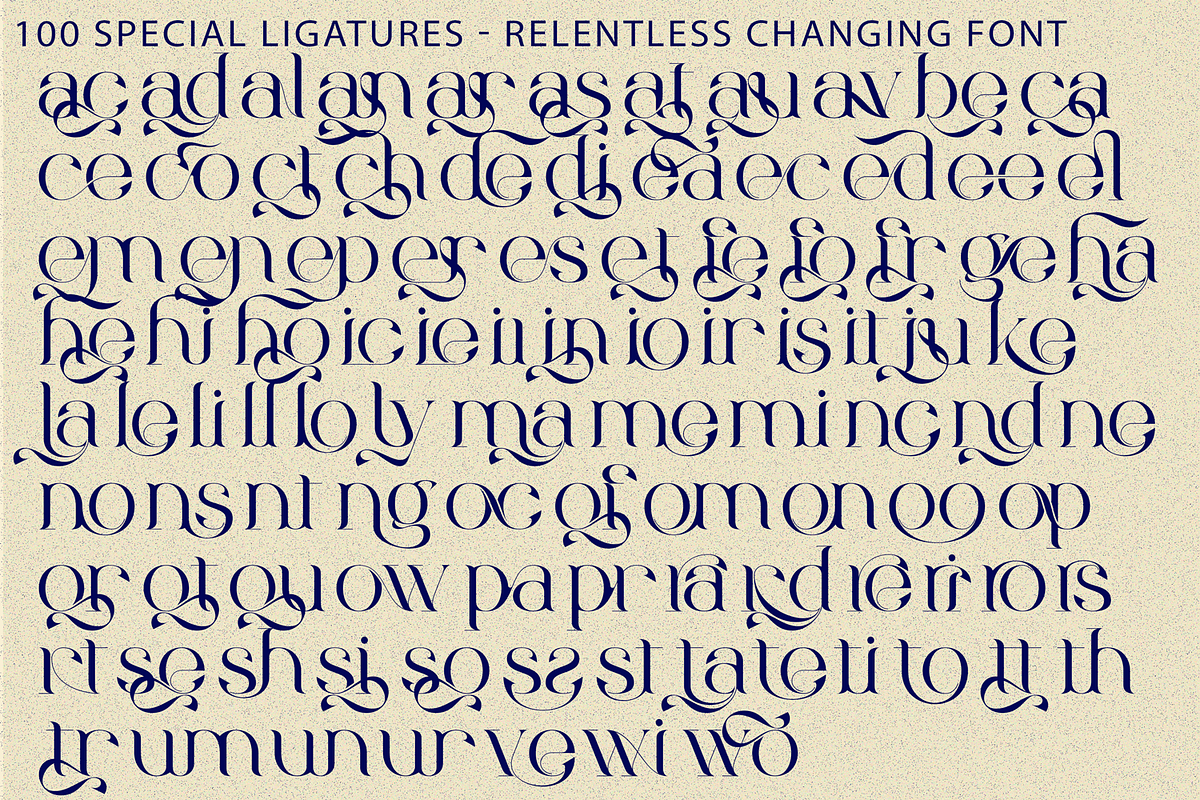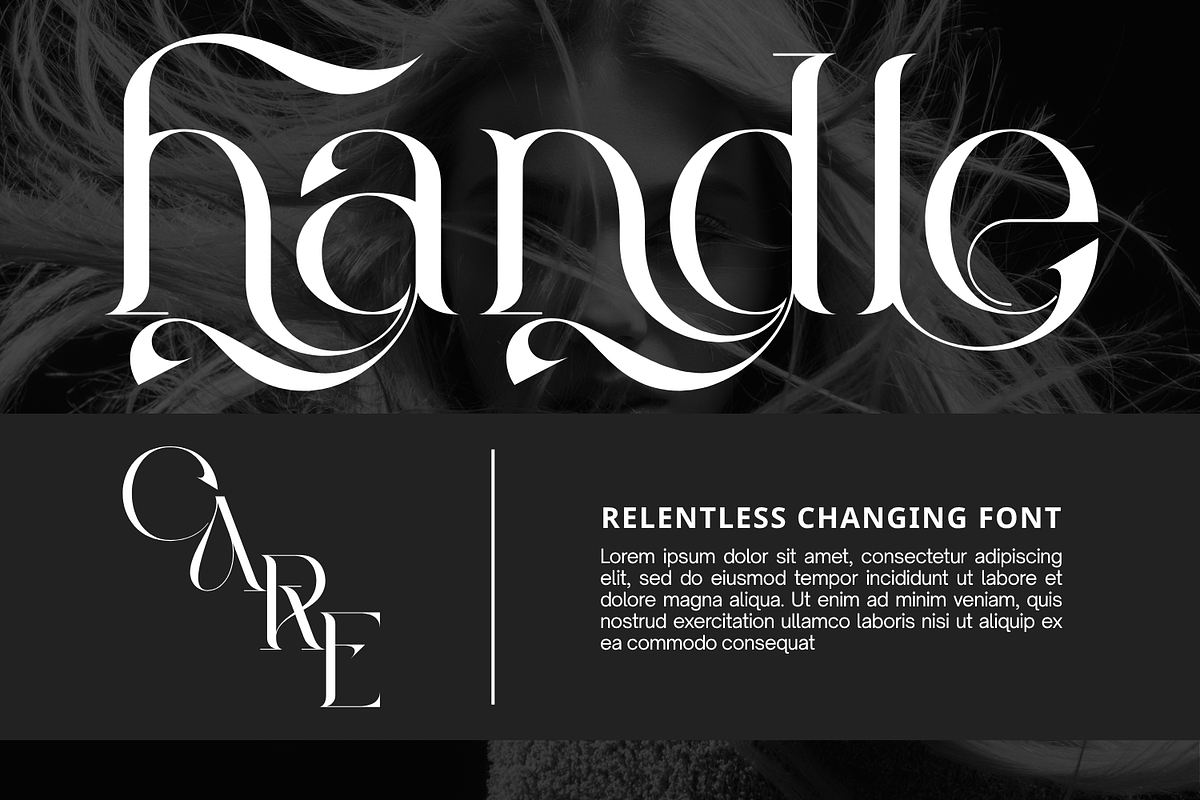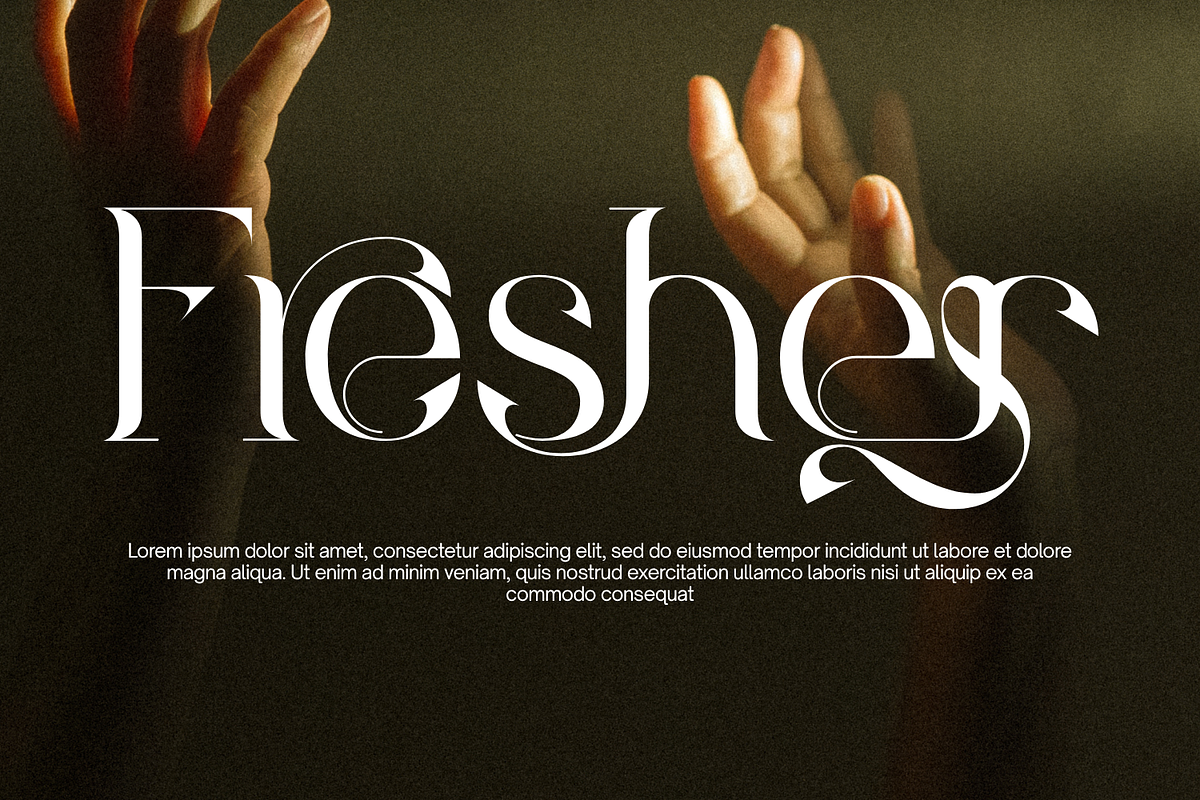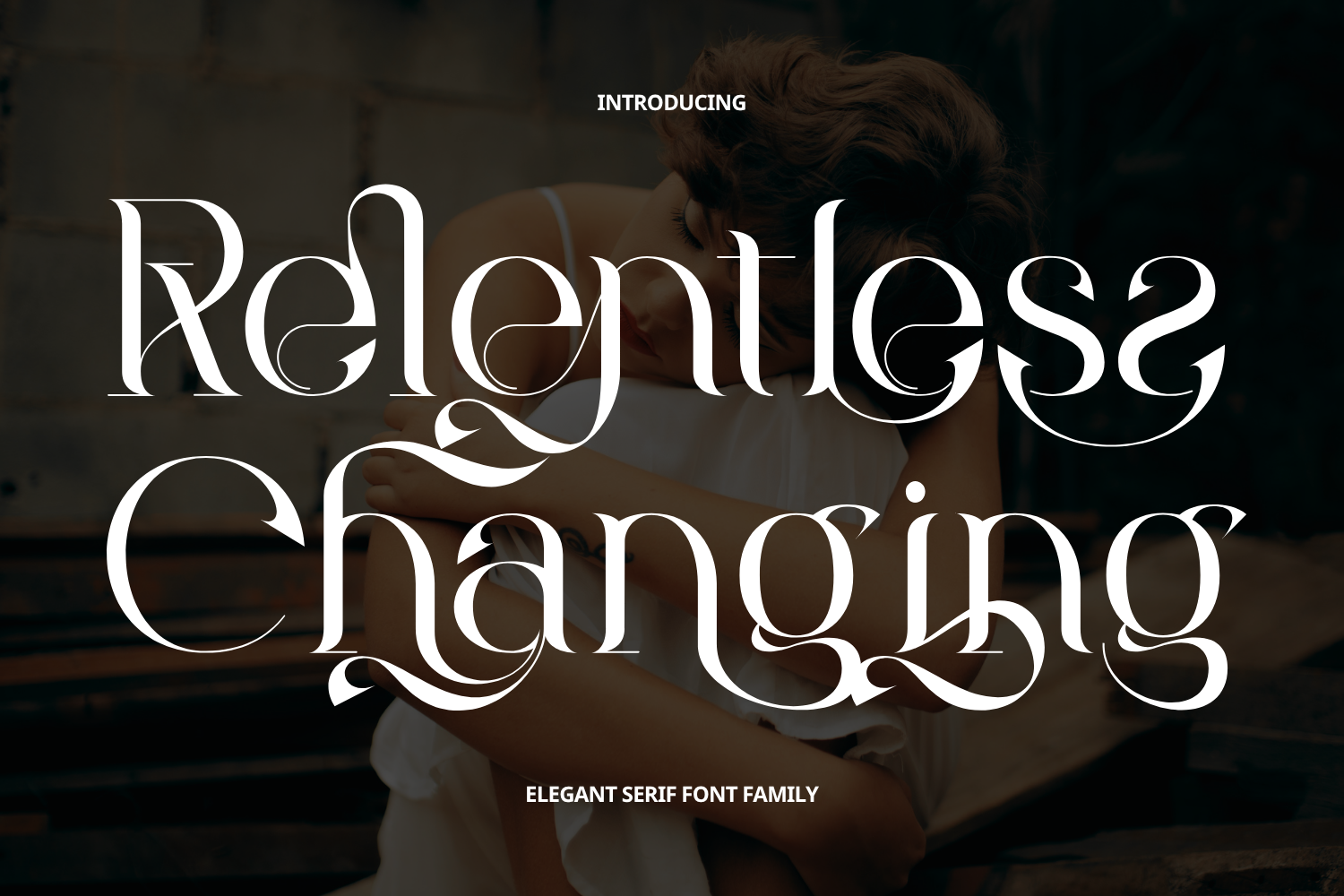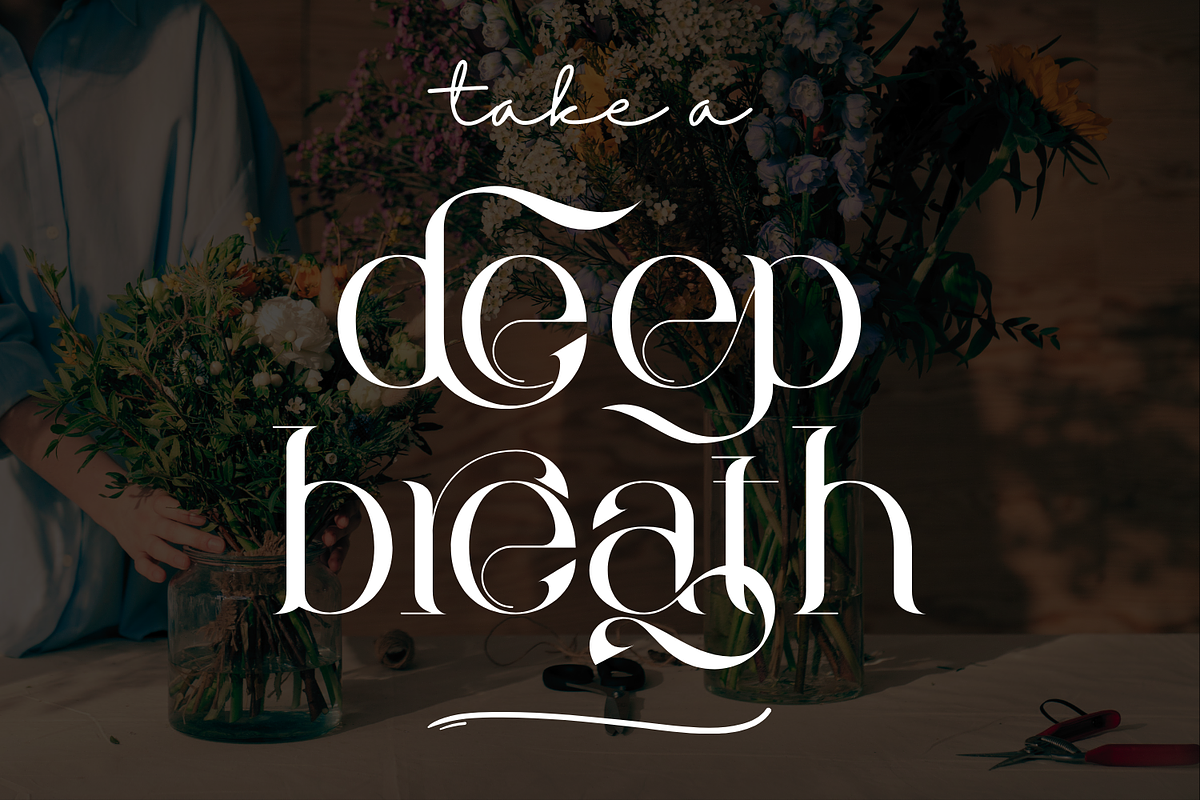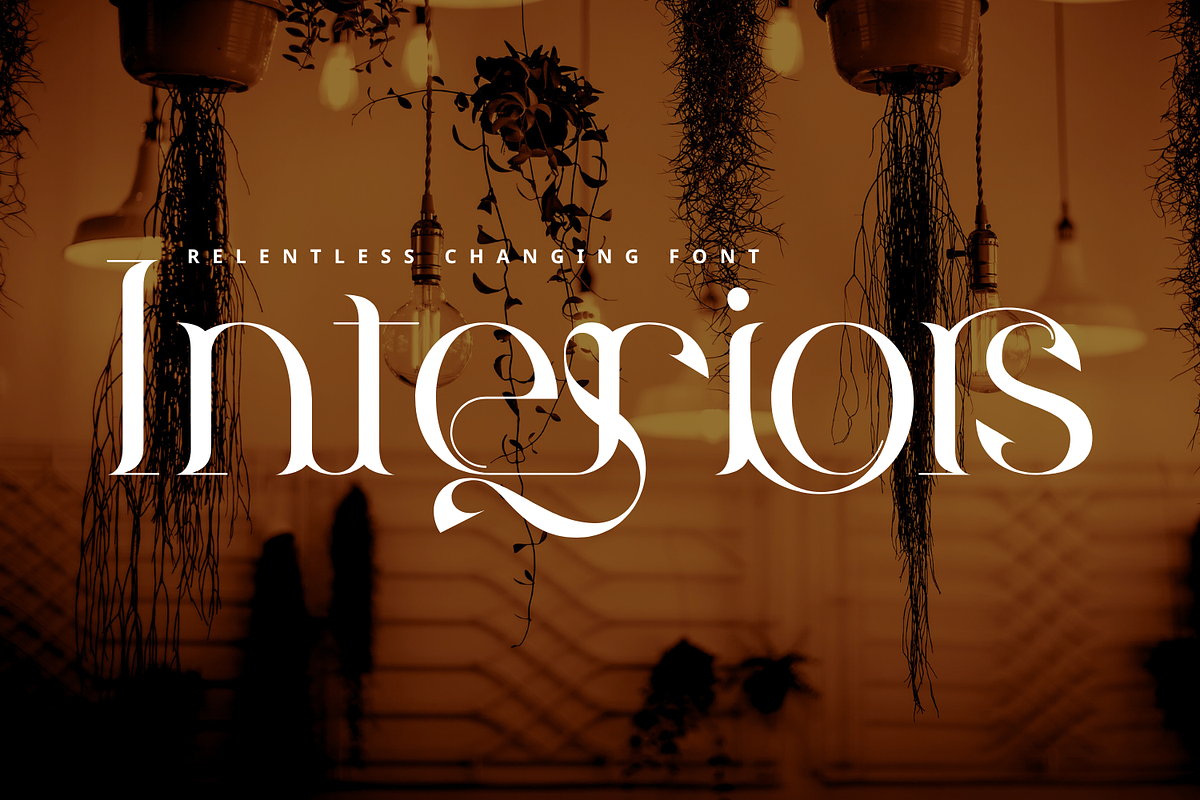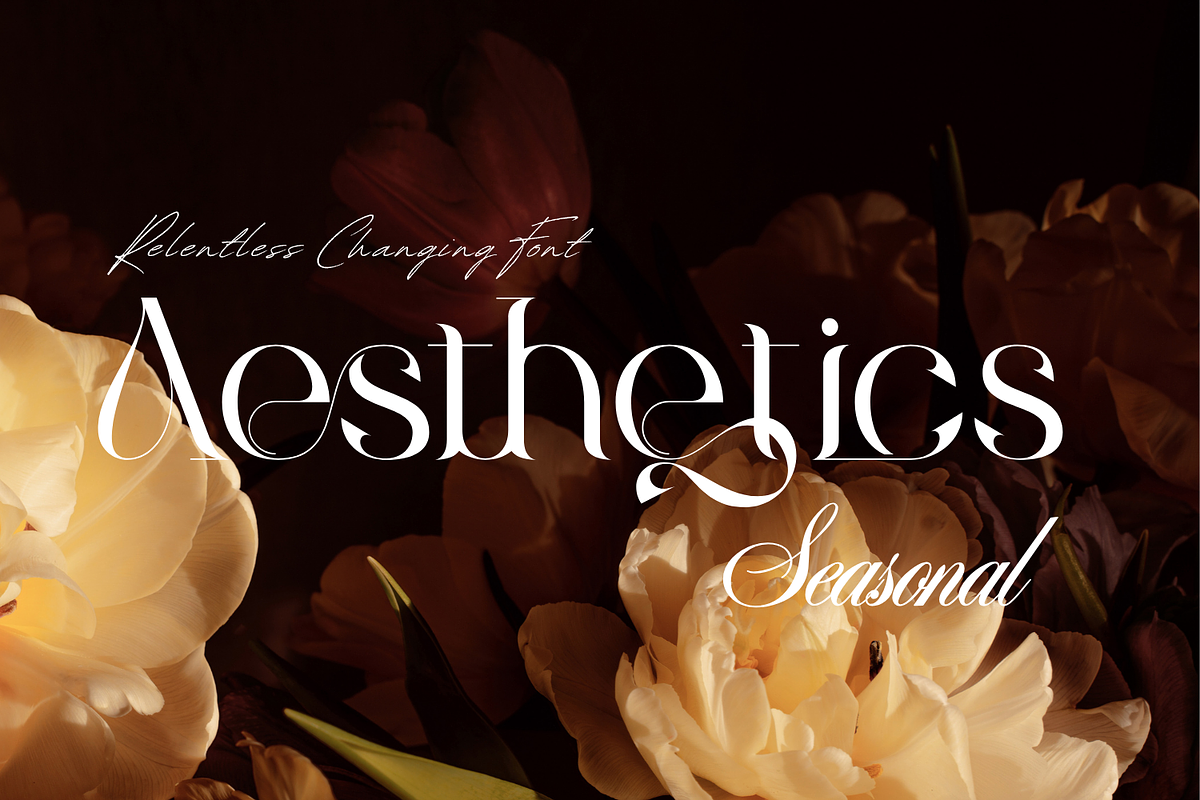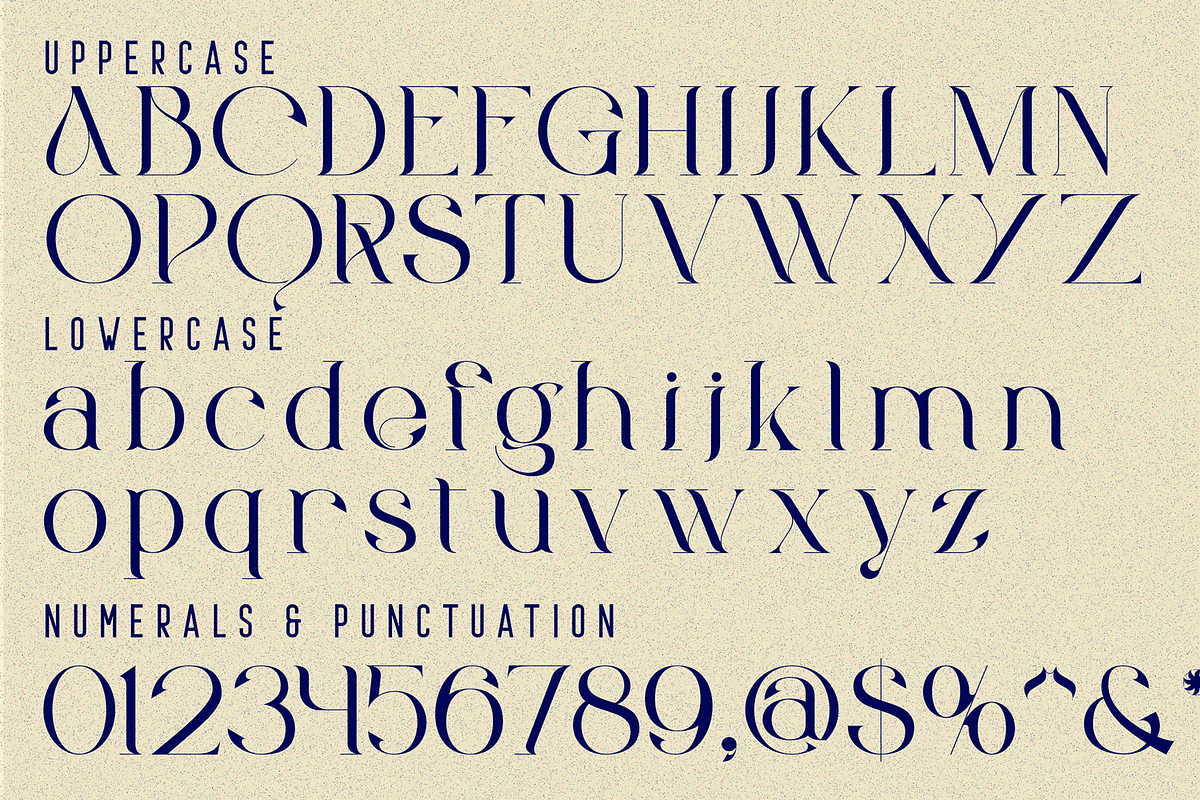
Relentless Changing - Luxury Font
Relentless Changing - Luxury Font is a luxurious calligraphic serif display font that blends timeless elegance with contemporary sophistication. Featuring dramatic high-contrast strokes, graceful curves, and beautifully crafted ornamental swashes, this typeface creates a refined and romantic visual experience. Inspired by luxury fashion editorials and classic calligraphy, Relentless Changing combines delicate details with expressive letterforms to deliver a distinctive sense of beauty and prestige. Its flowing terminals and decorative flourishes add movement, charm, and personality while maintaining exceptional readability for premium display applications.
🔤Features:
Uppercase & Lowercase Letters
Around 100 Special Ligatures & Alternates
Accented Characters for multilingual support
🔤About 100 ligatures combined with Stylistic Alternates Font:
ac ad al an ar as at au av be ca ce ch co ct de di ea ec ed ee el em en ep er es et fe fo fr ge ha he hi ho ie ic il in io ir is it ju ke la le li ll lo ly ma me mi nc nd ne ng no nt ns oc of om on oo op or ot ou ow pa pr ra rd re ri ro rs rt se sh si so ss st ta te th ti to tr tt um un ur ve wi wo